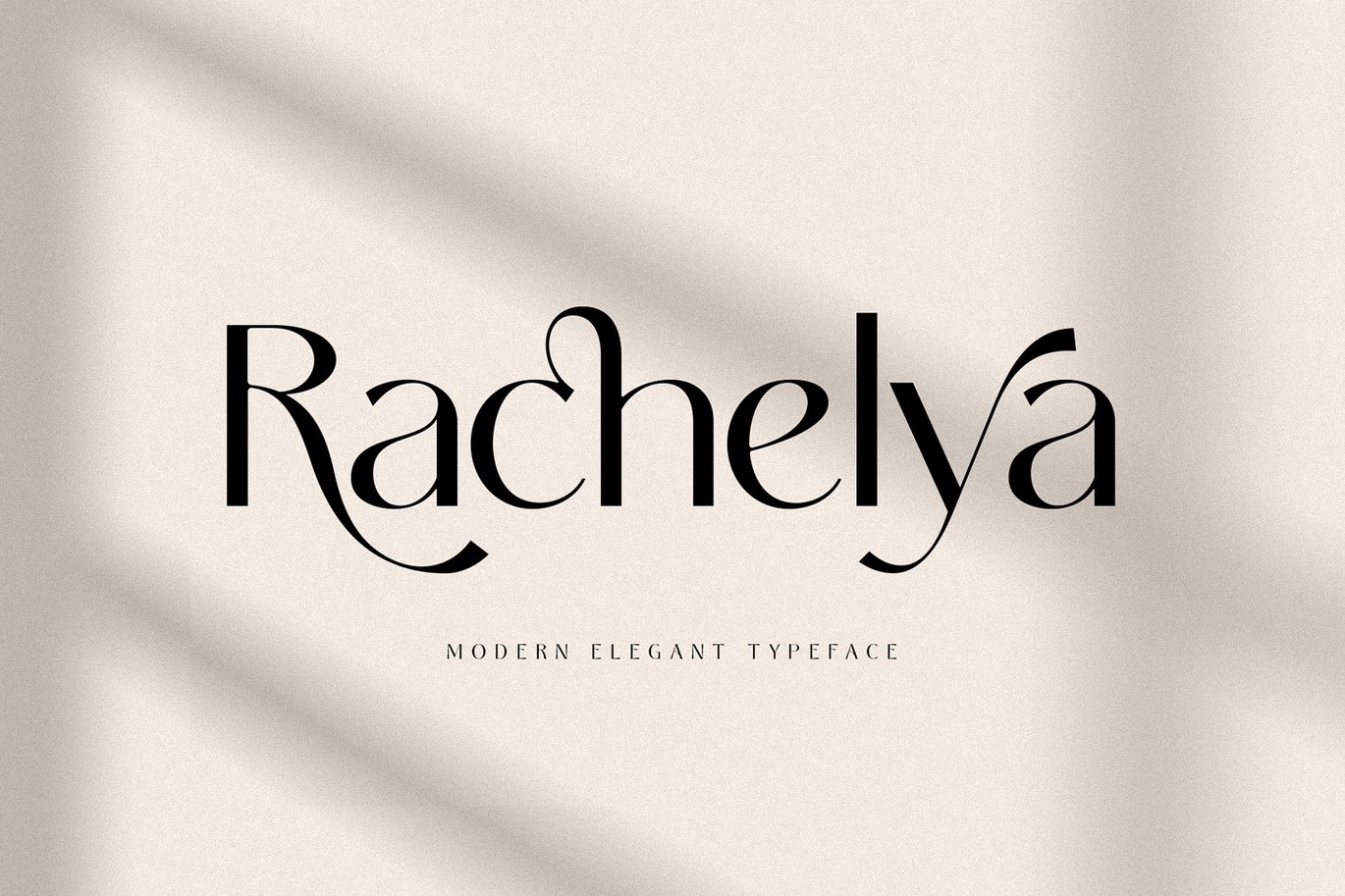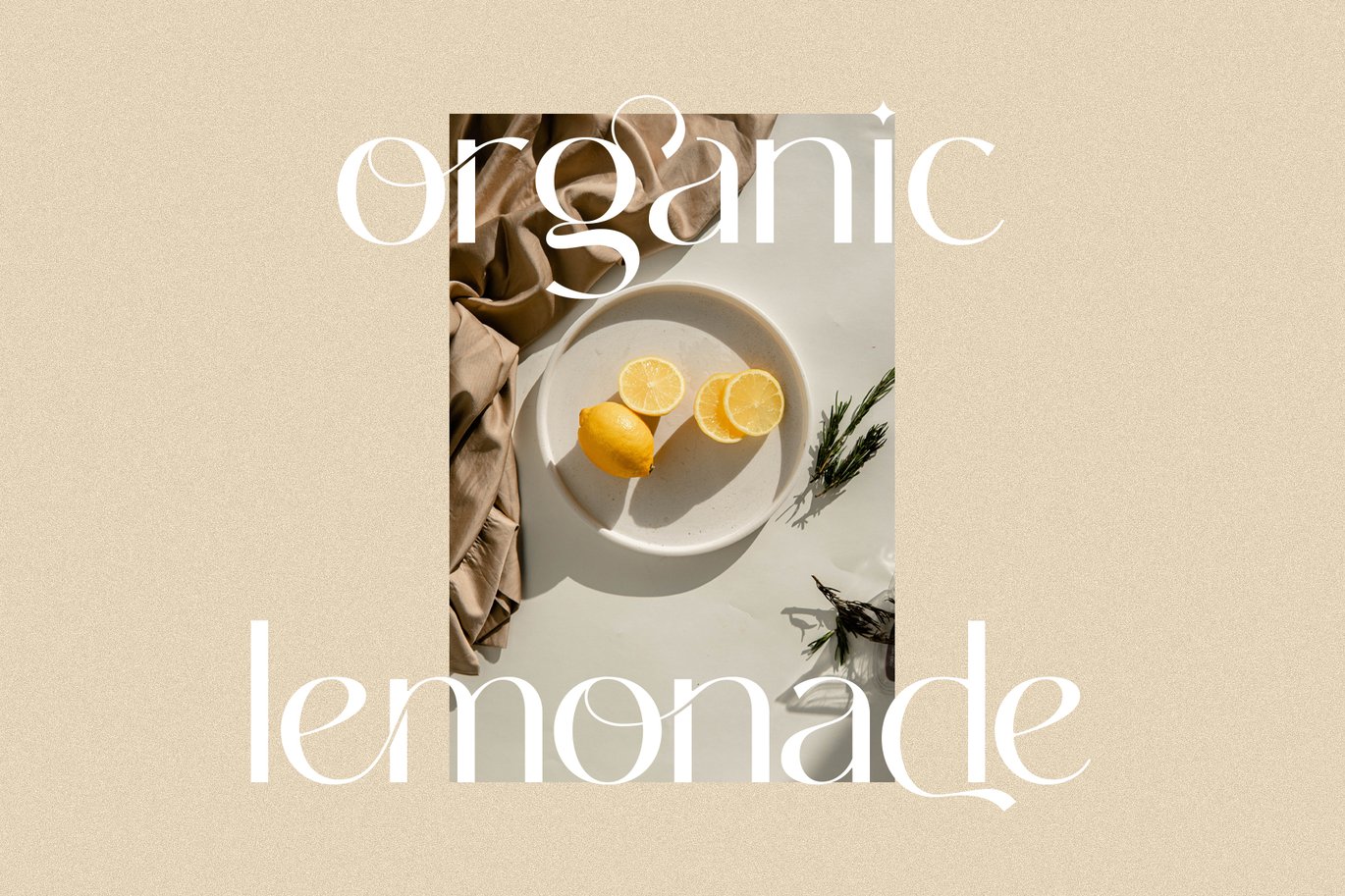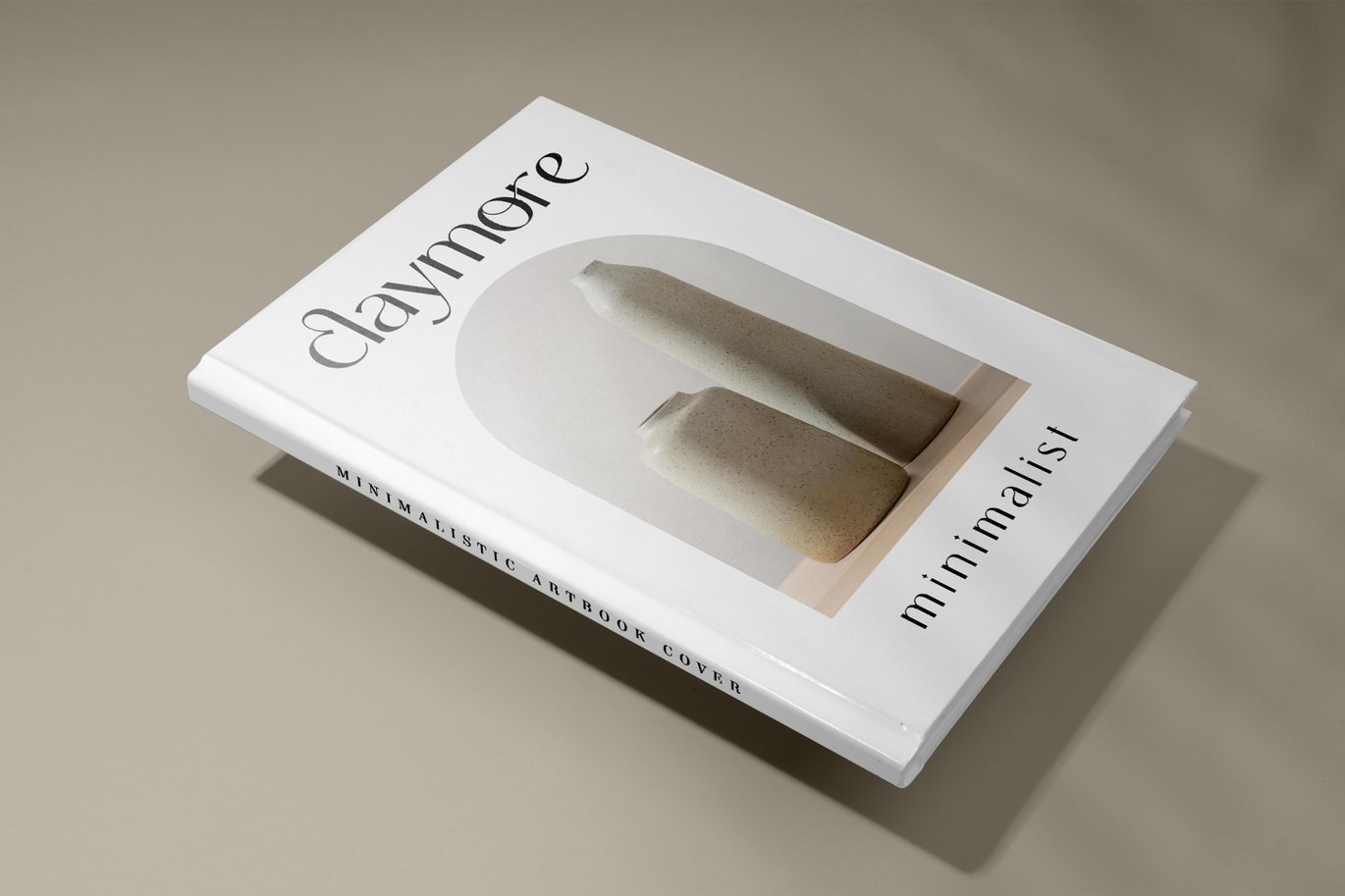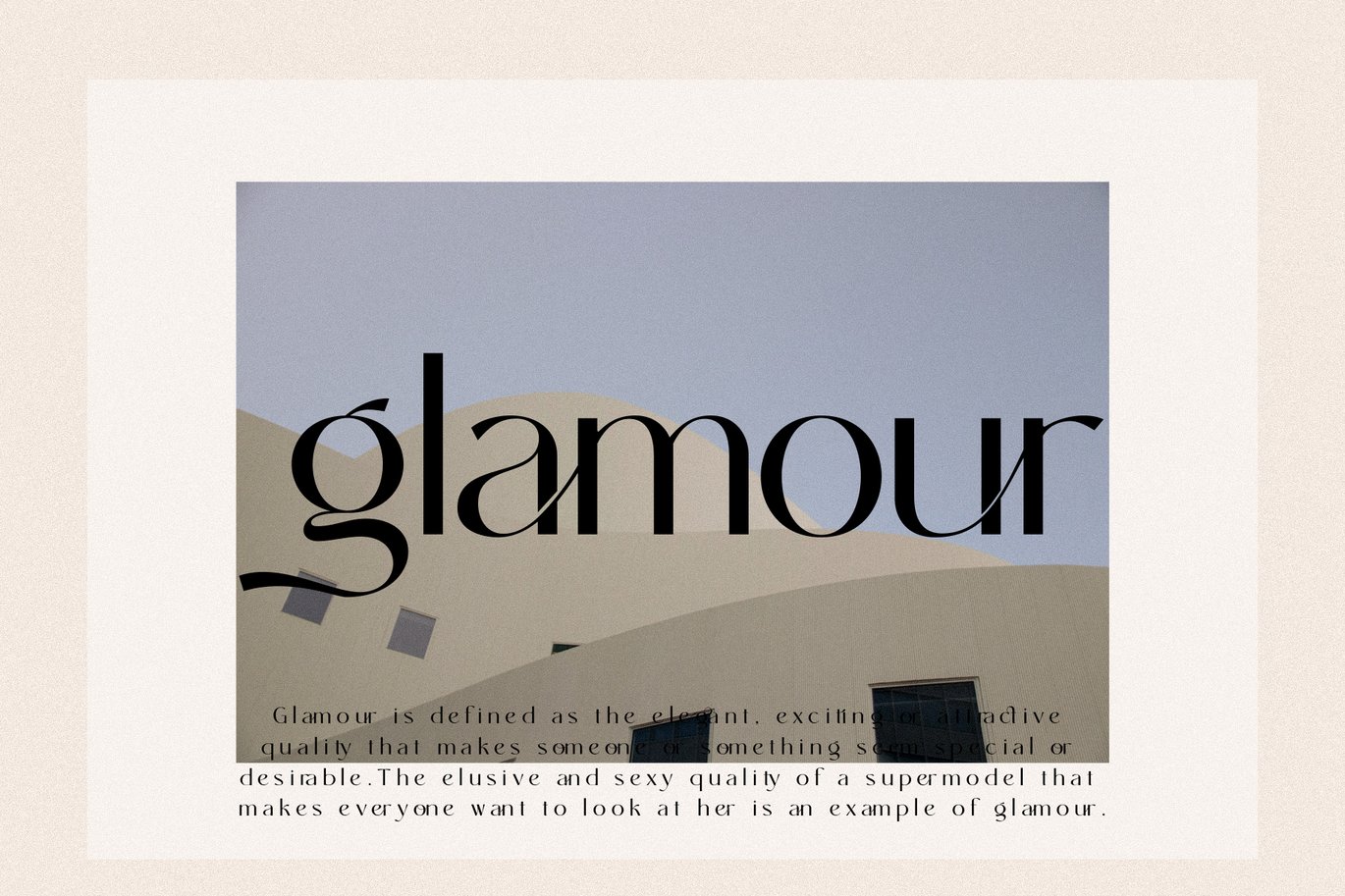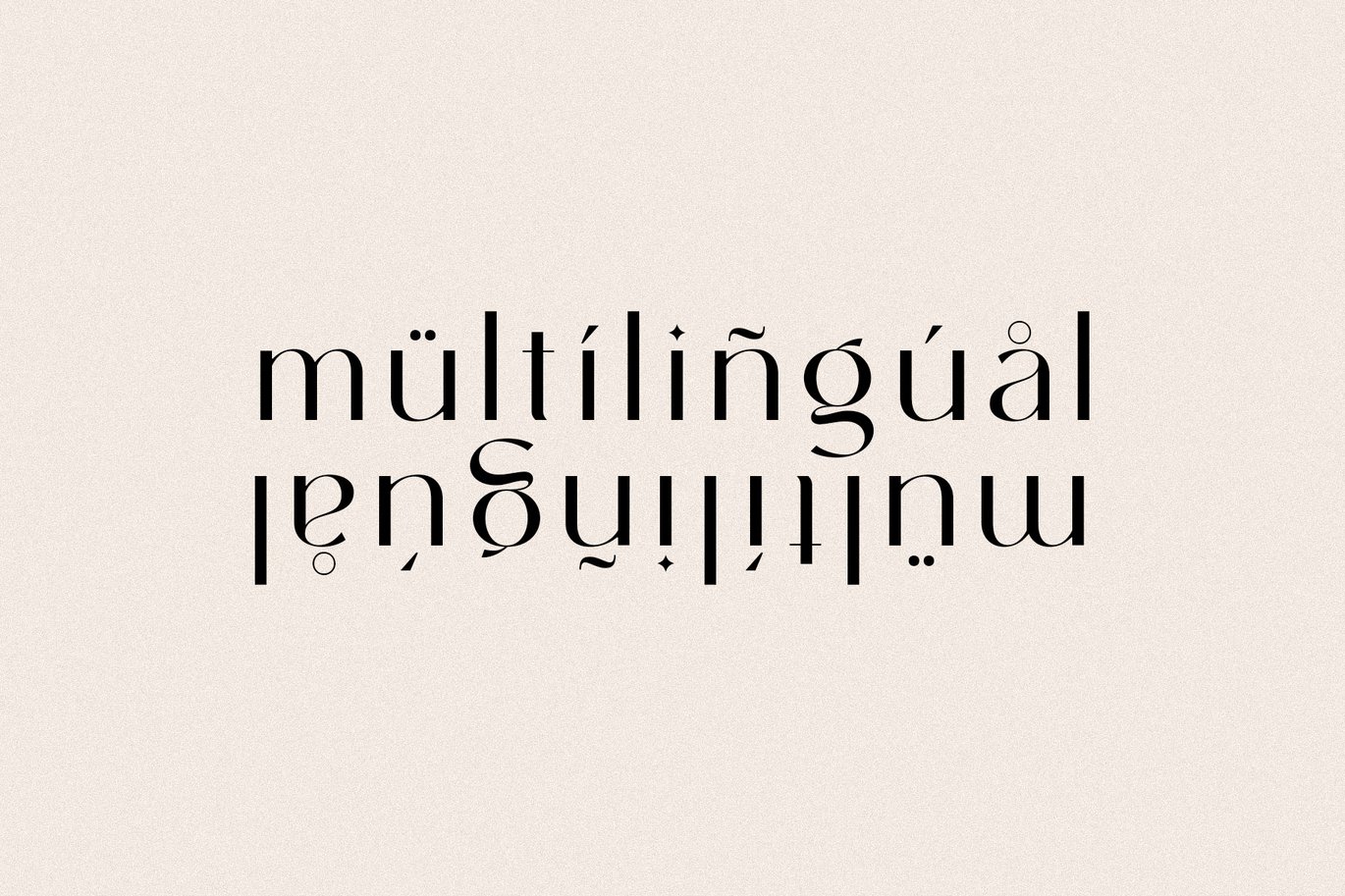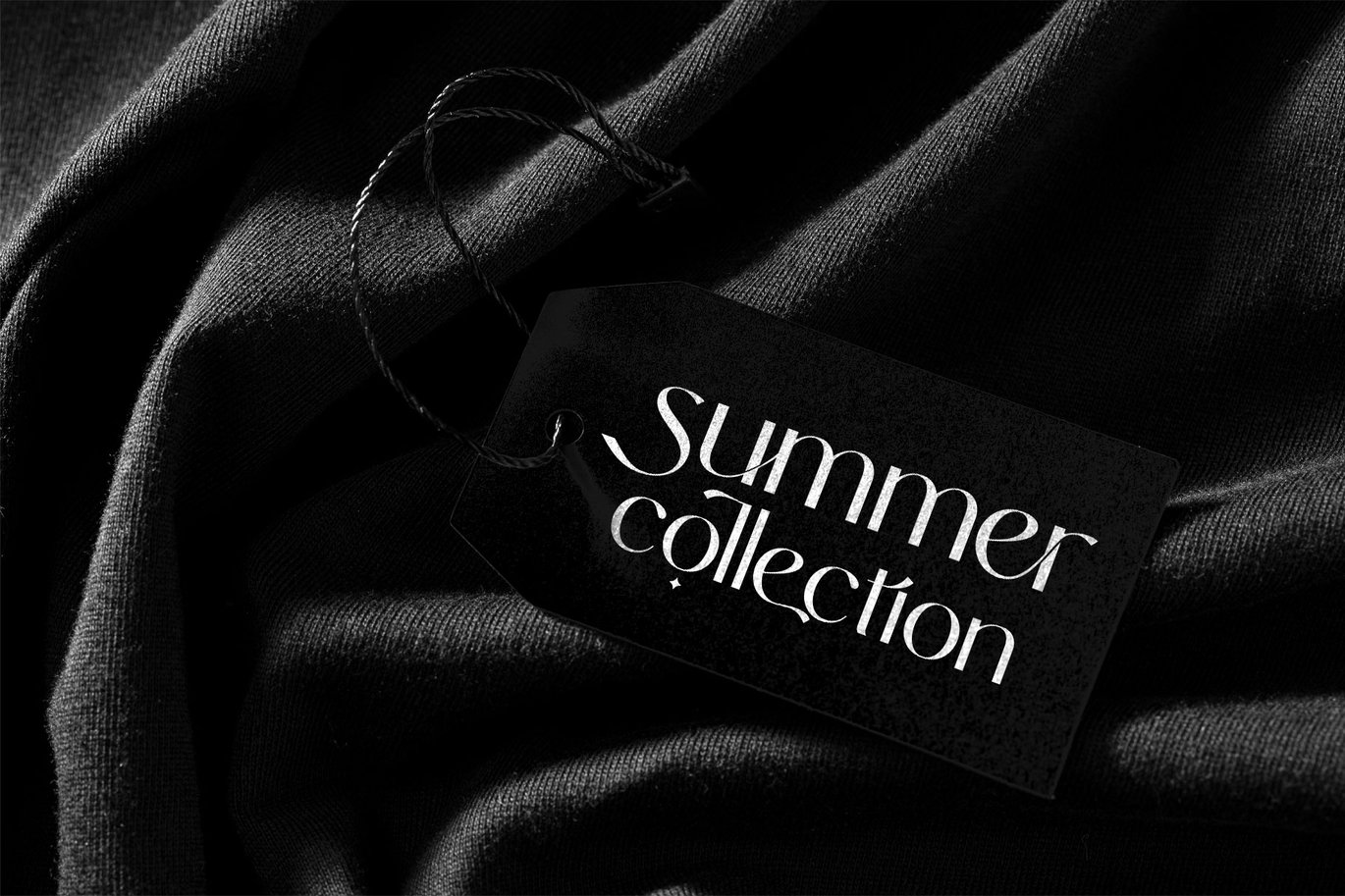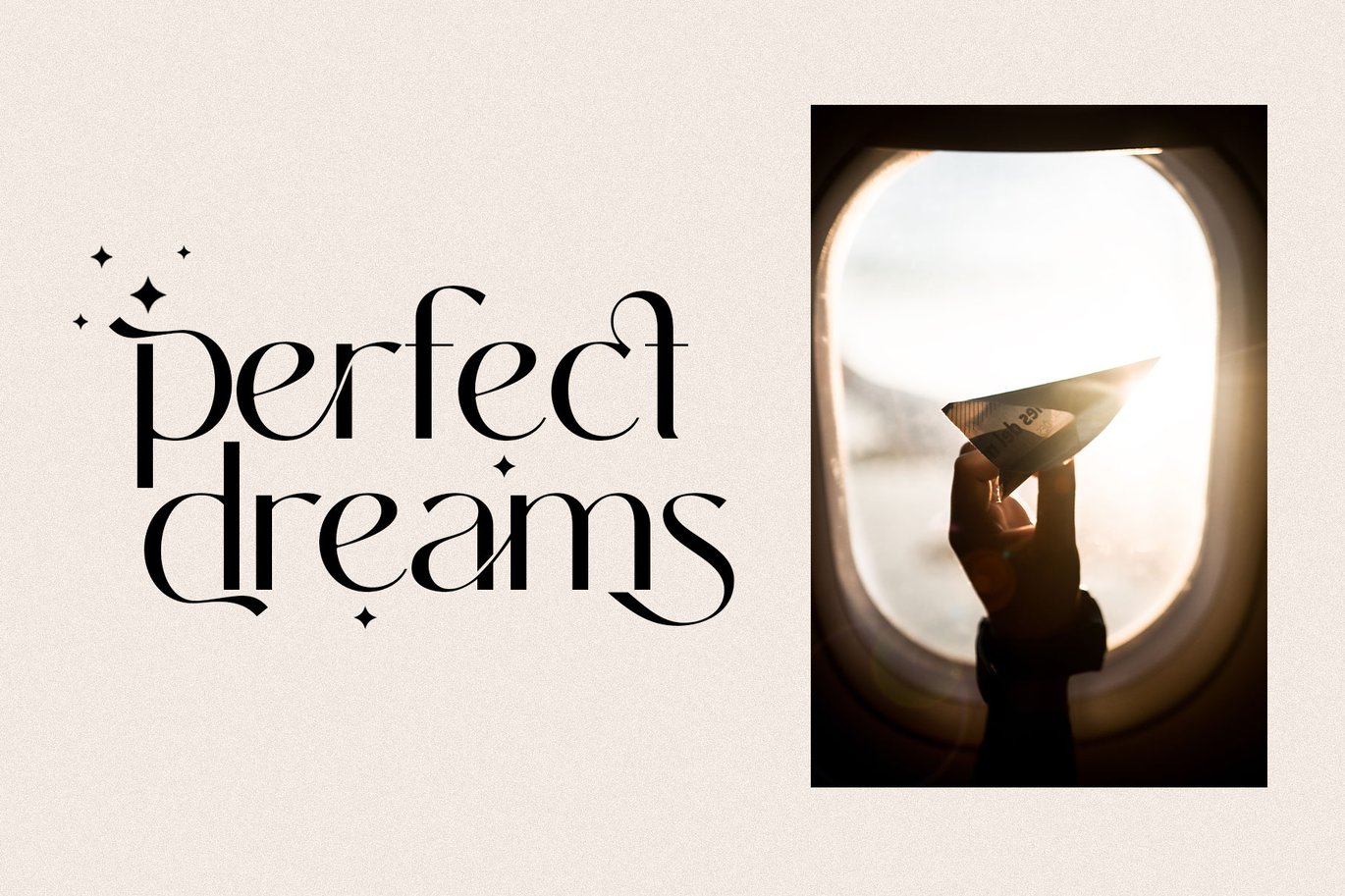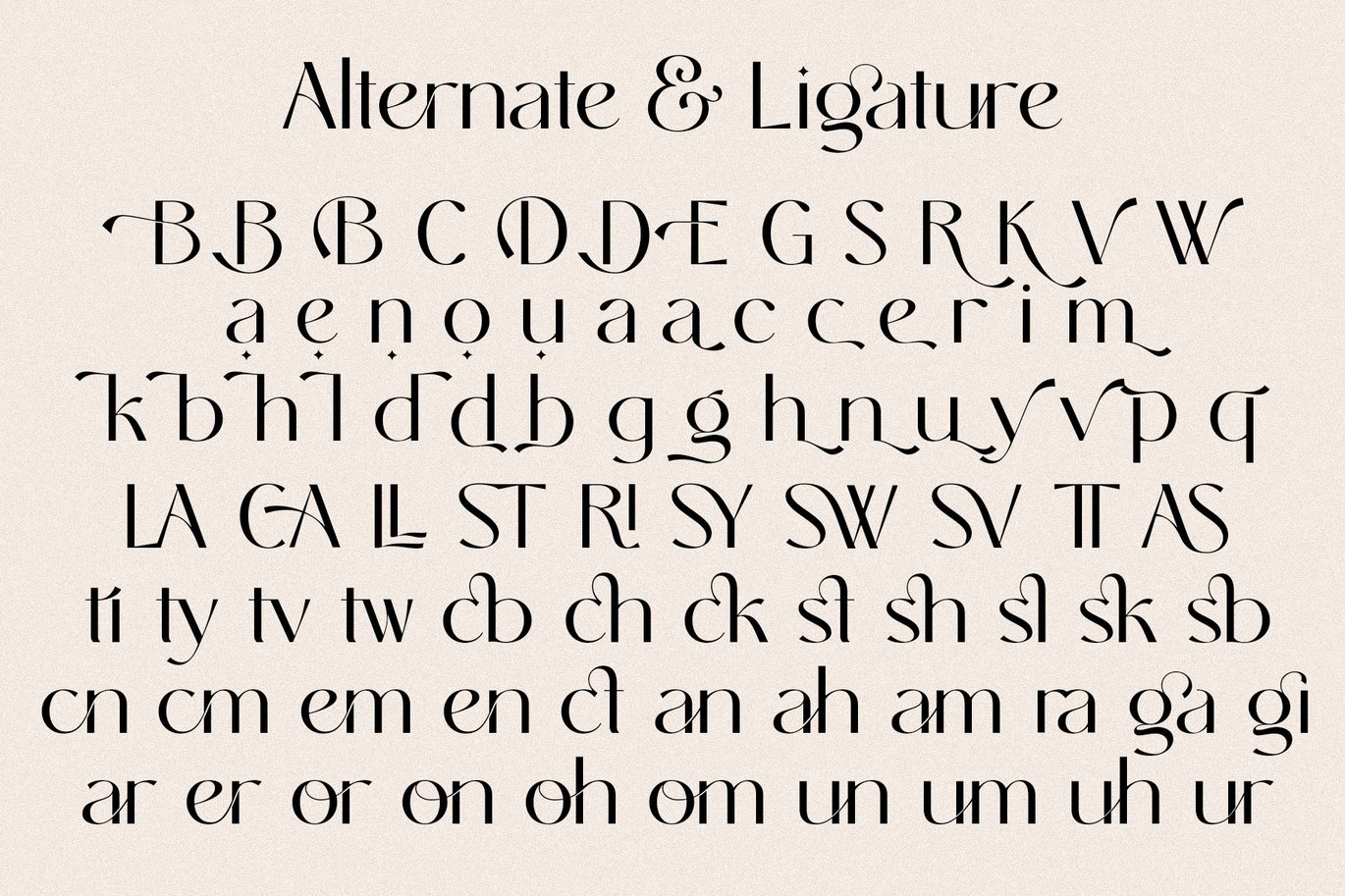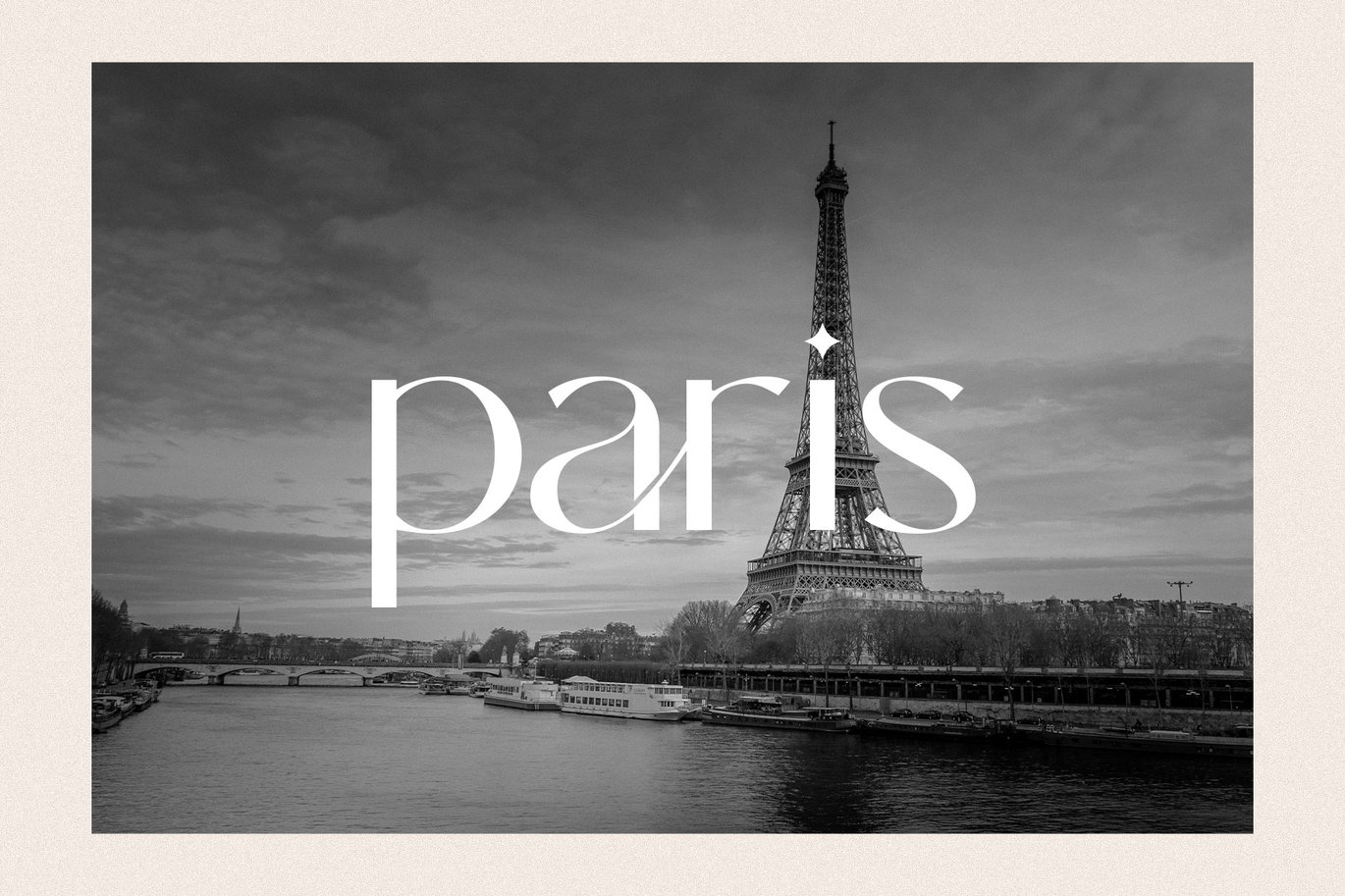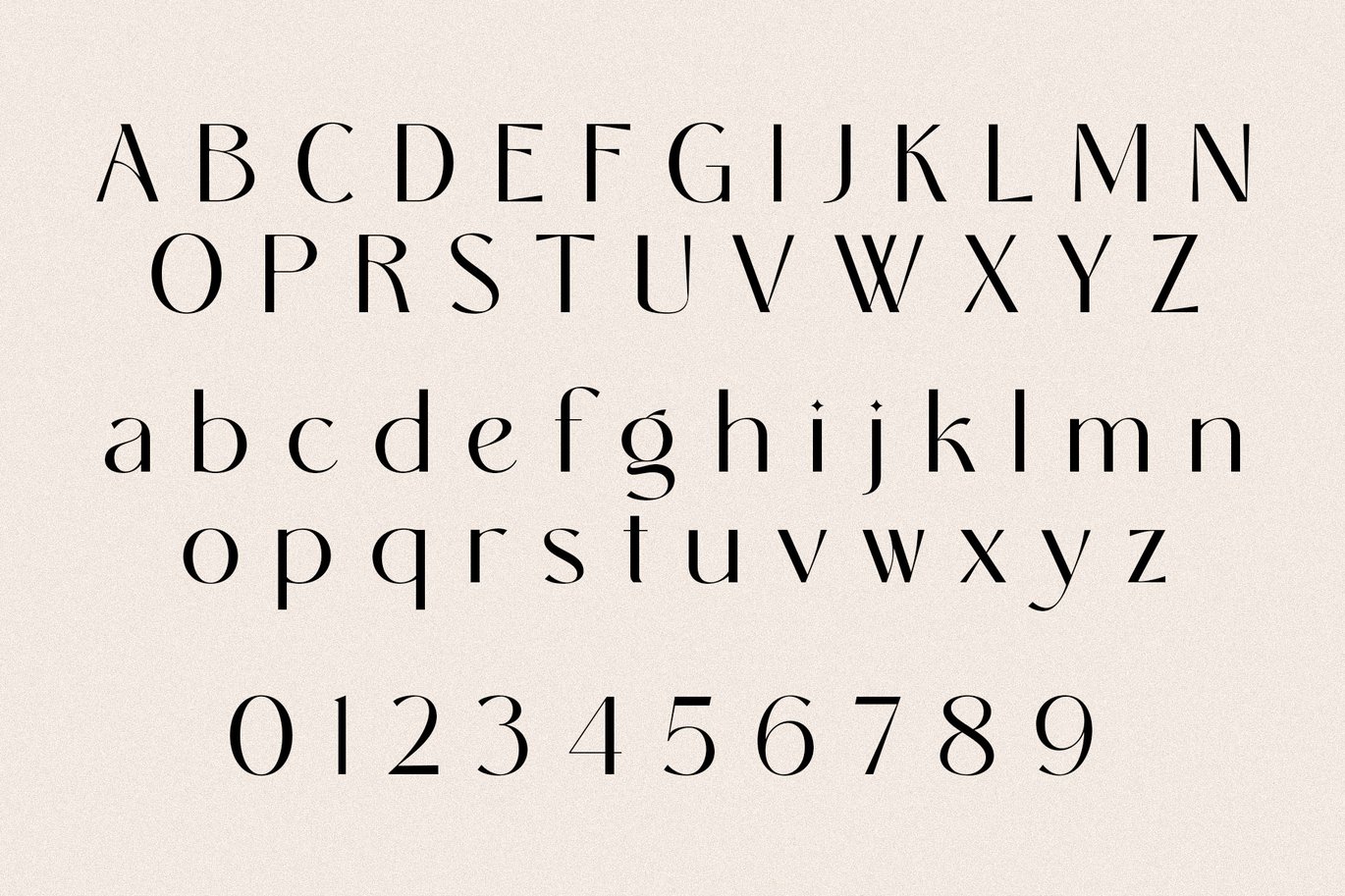
Modern Elegant Font
Rachelya is a modern elegant typeface with a collection of stylistic alternates and ligatures. Rachelya has a combination of clean, medium lines and smooth curves, so it will work nicely with beauty or fashion themes.
- Stylistic Alternates Set